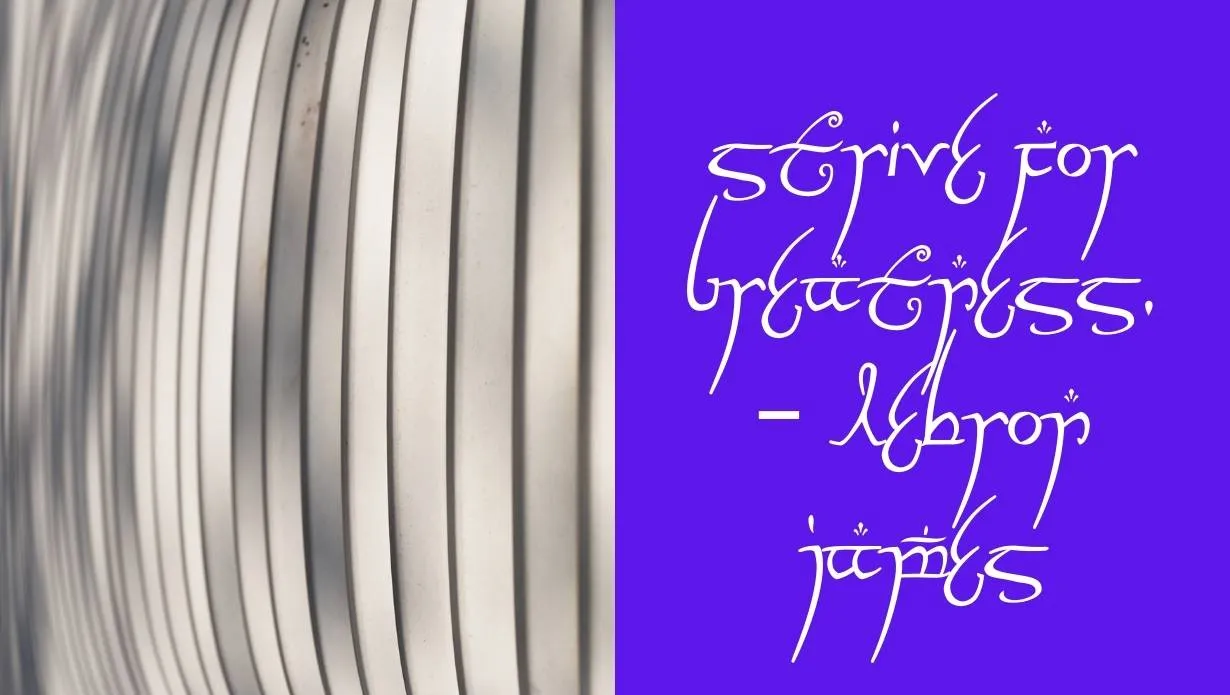
We present a new classic and amazing typeface named Elvish Ring Font. It belonged to the Gothic category. The original designer of this amazing typeface was Thomas W. Otto. You can use this awesome font for personal as well as commercial purposes.
Elvish Ring Font is a perfect choice for those who are looking for a simple yet elegant typeface. It features natural and organic shapes that make it perfect for any design project. It is best used in CSS. ED gothic font is similar to this typeface and works in the same manner.